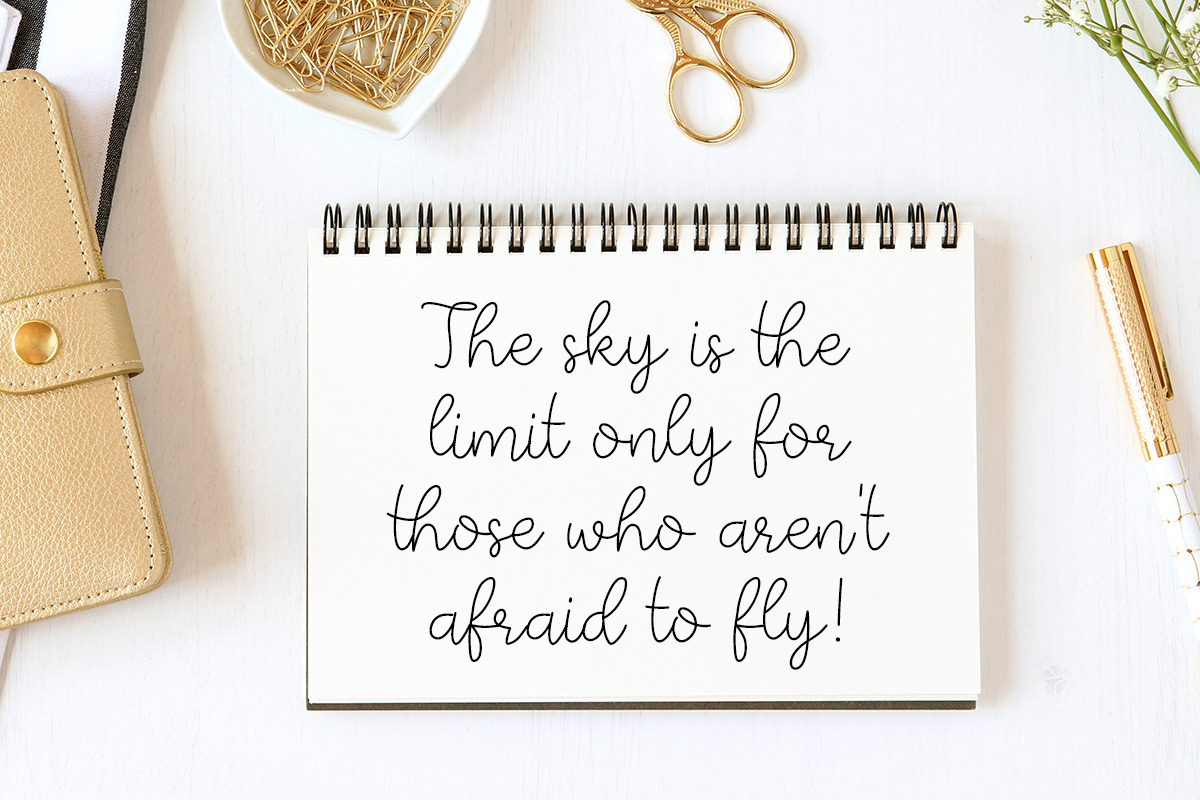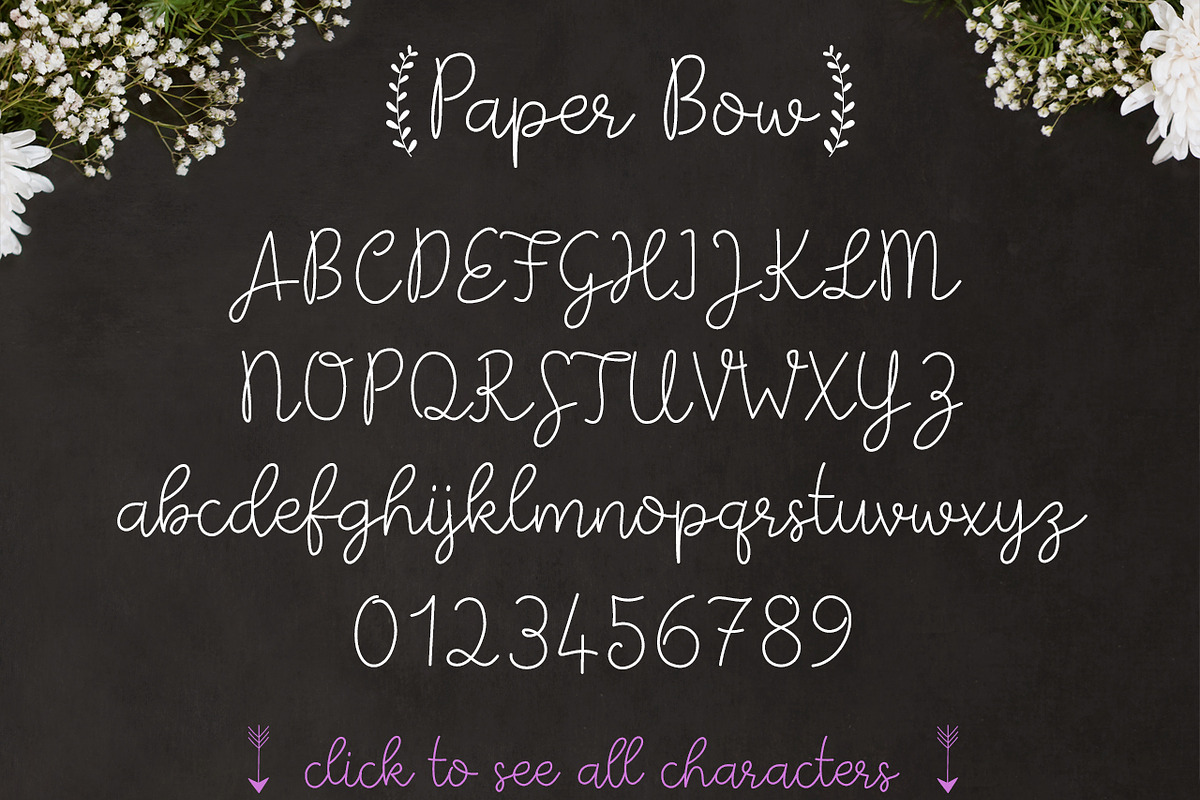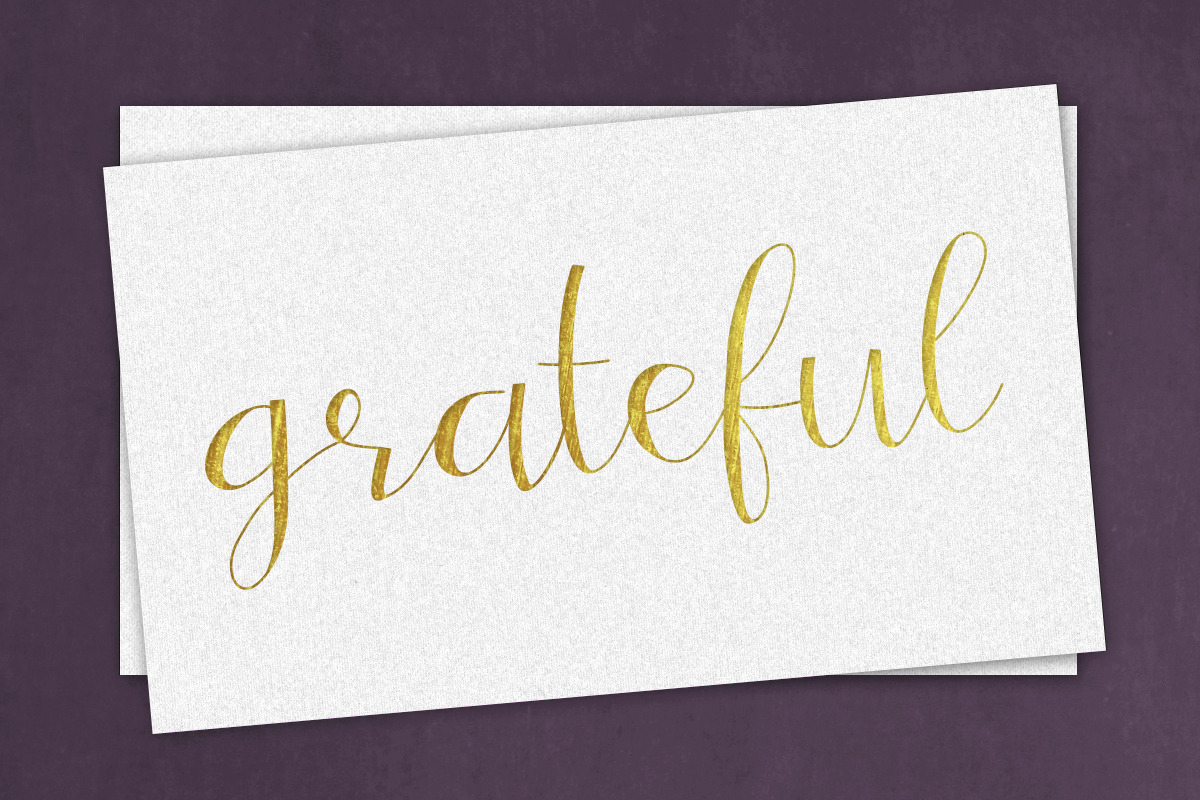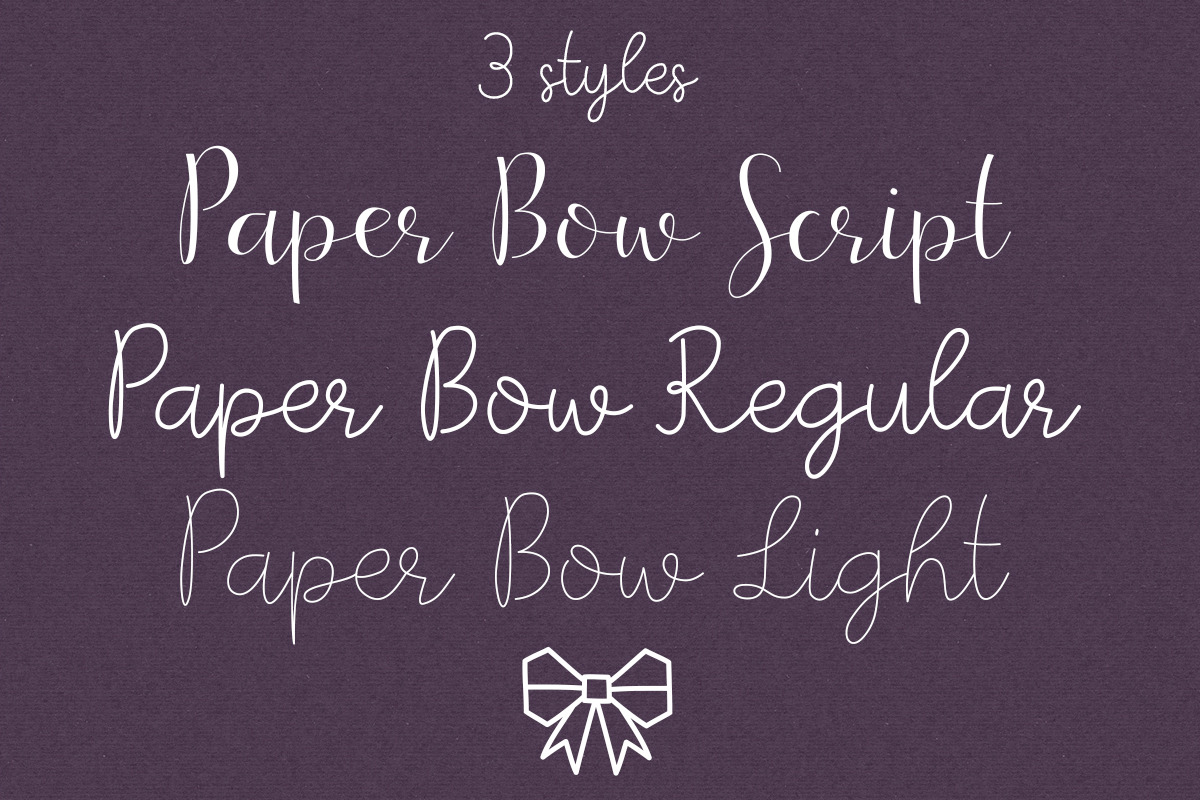
Paper Bow - Script Font Family
Paper Bow - Script Font Family by maja.mint is a font selected for branding, posters, packaging, typography.
- The font includes some cute symbols.
Why Paper Bow - Script Font Family is worth a look
Paper Bow - Script Font Family by maja.mint fits naturally into Branding, posters, packaging, typography.